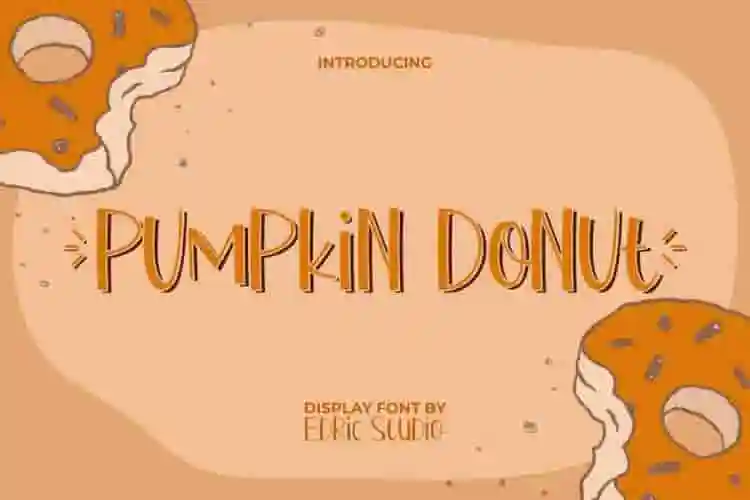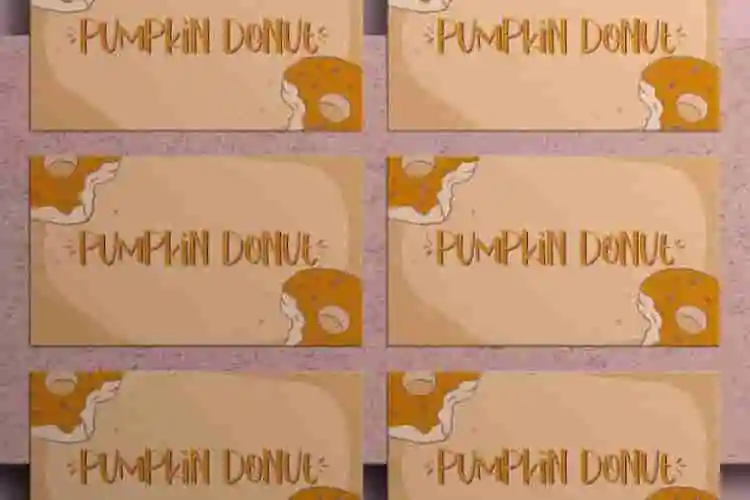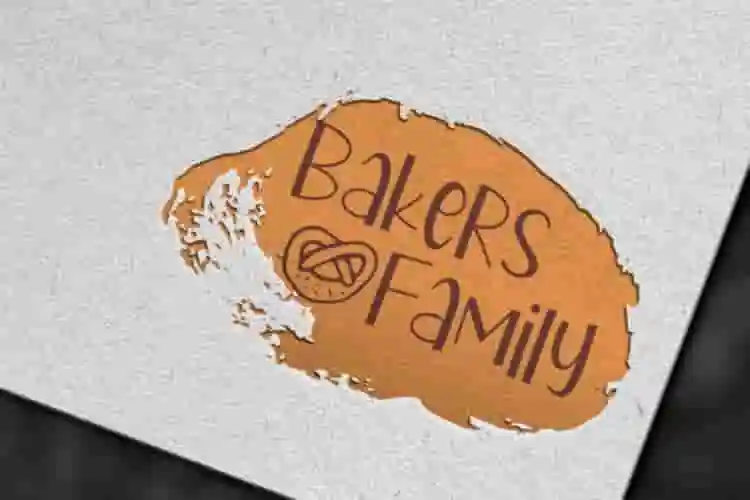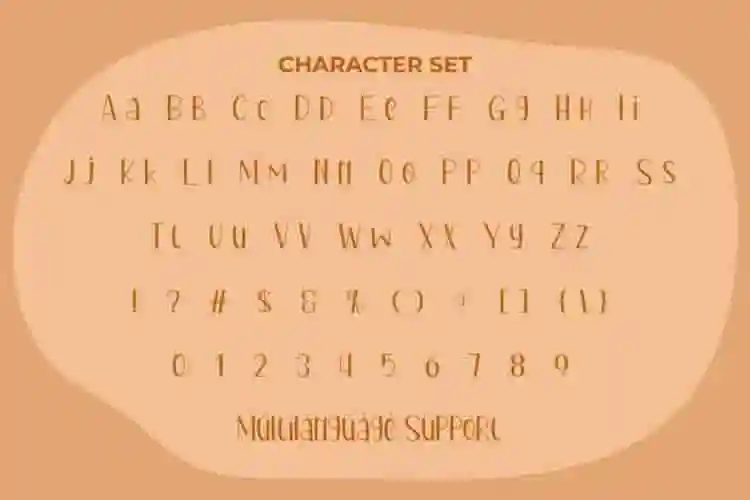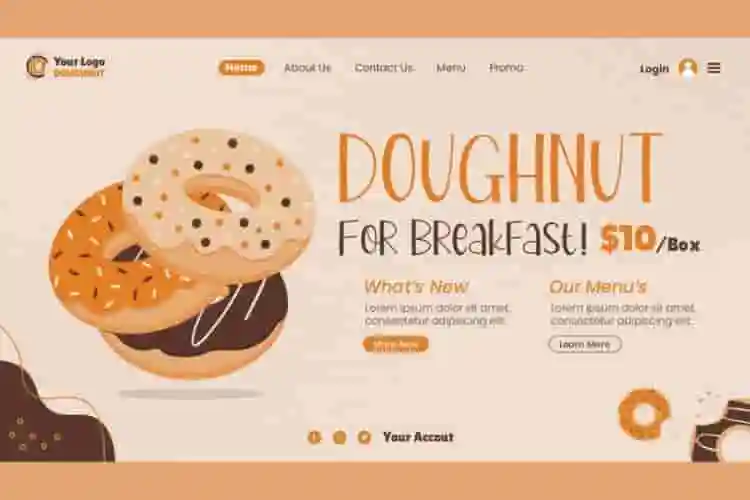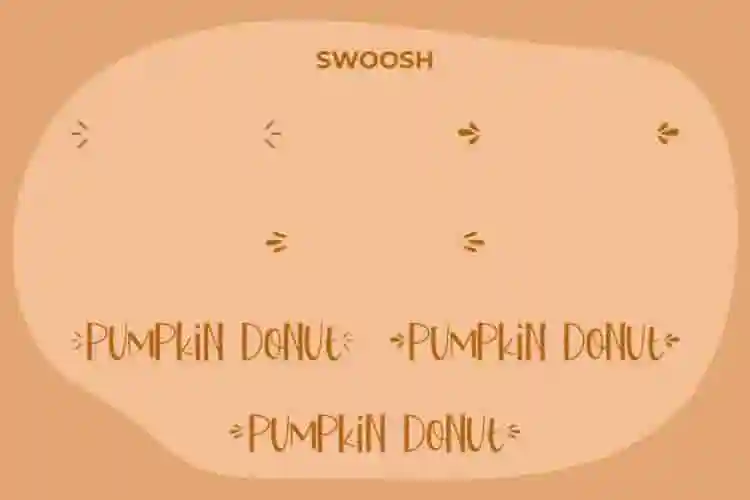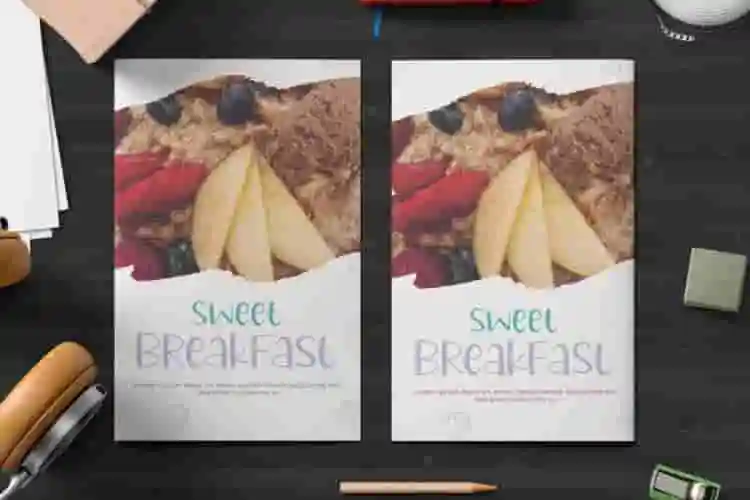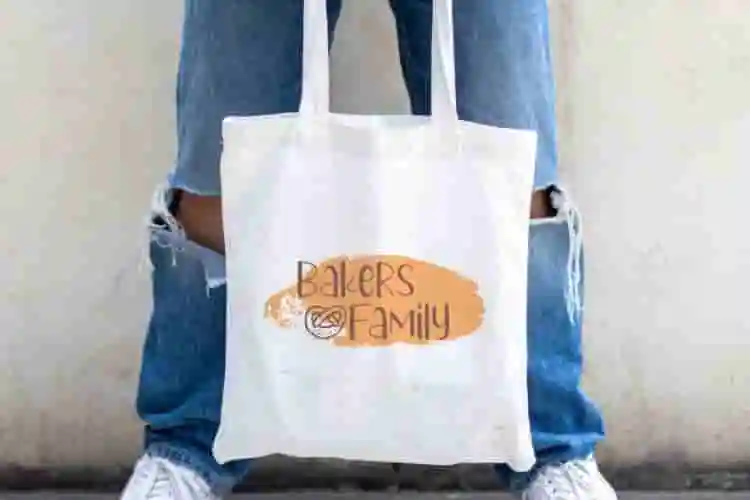
Pumpkin Donut Font is an adorable playful comic display font and carries a simple classic concept. This font looks slim and tall on the capital letters because it is inspired by condensed fonts, another unique thing it has is the swoosh character which feels creative for whatever your design is, like blogs, brochure, catalogue, card, header, logos, menu, packaging design, pamphlet, poster, product label, quotes, screen print, sticker, title, website, and more.
Pumpkin Donut Font comes with a full set of Uppercase and Lowercase letters, Number, Punctuation, Symbol and Swoosh. The clean and modern letters of this powerful font make it dynamic in various projects for any industry, such as cafes, content creators, crafts, graphic design, interior design, printing, publishing, restaurants, web designers, writers, etc.
Say hello to cozy vibes and sugary fun with Pumpkin Donut Display Font — a deliciously cute display font inspired by autumn treats, pumpkin spice, and playful hand lettering. This font brings the perfect blend of fun and flavor to all your seasonal and year-round designs.
Perfect for fall-themed projects, Halloween posters, bakery branding, party invitations, food labels, children’s books, and cozy quotes — Pumpkin Donut Display Font is full of personality. Its chunky, round letterforms feel soft, warm, and friendly, like a freshly baked donut on a crisp autumn morning.
Whether you’re creating a fun social media post, designing festive packaging, or crafting with your Cricut, this display font makes your message pop with charm and joy.